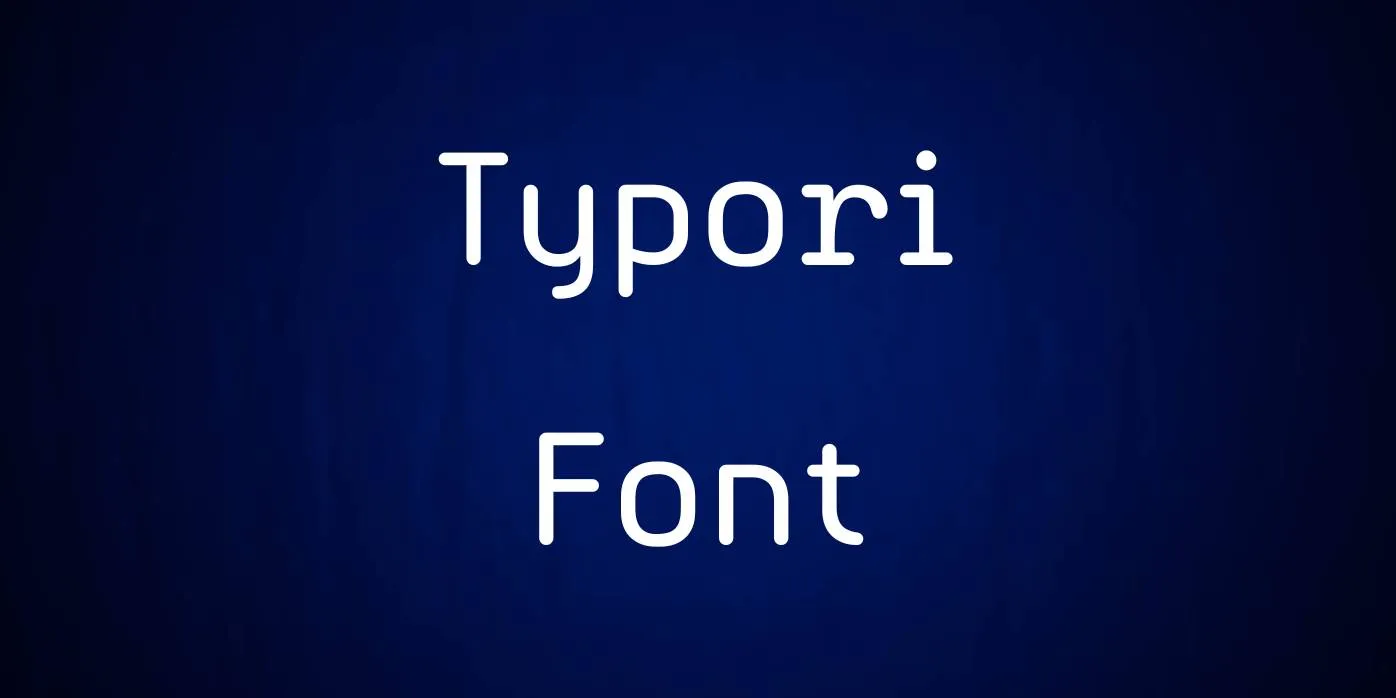
Typori Font
Typori Font is a basic font. This texture is available on this website for download. YTY Digital TypeFoundry is the creator of this texture. The characters of this texture are classic, readable, and fantastic. There are 425 unique and stunning glyphs for this texture.